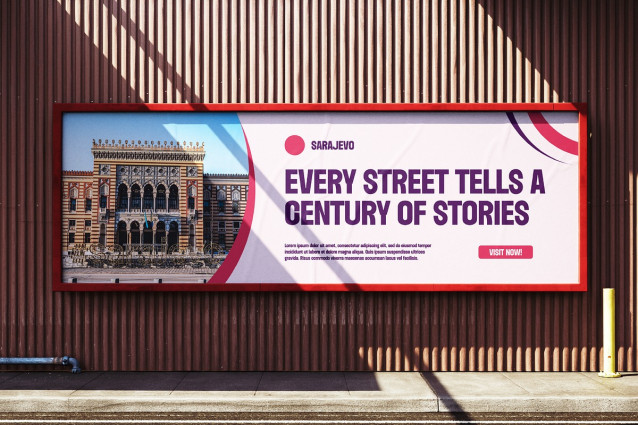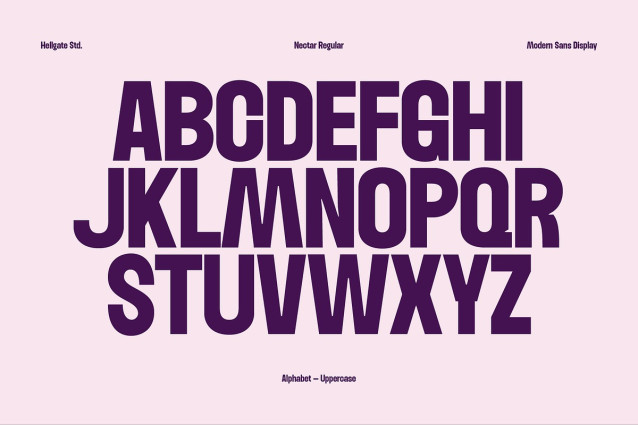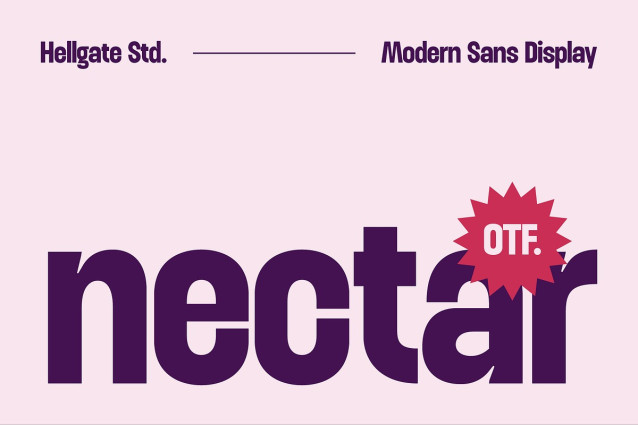
Nectar Font
Nectar Font, a sleek and versatile typeface perfectly aligned with contemporary, headline, and exquisite themes. Thanks to its editable text and color features, customization never looked easier. Boasting high-quality rendering, this font is not just a chic selection but also an assurance of high visual clarity. Delivered in OTF file format, Nectar Modern Sans is all set to elevate your design aesthetics. Add elegance and modernity to your creative projects with the timeless appeal of Nectar Modern Sans.